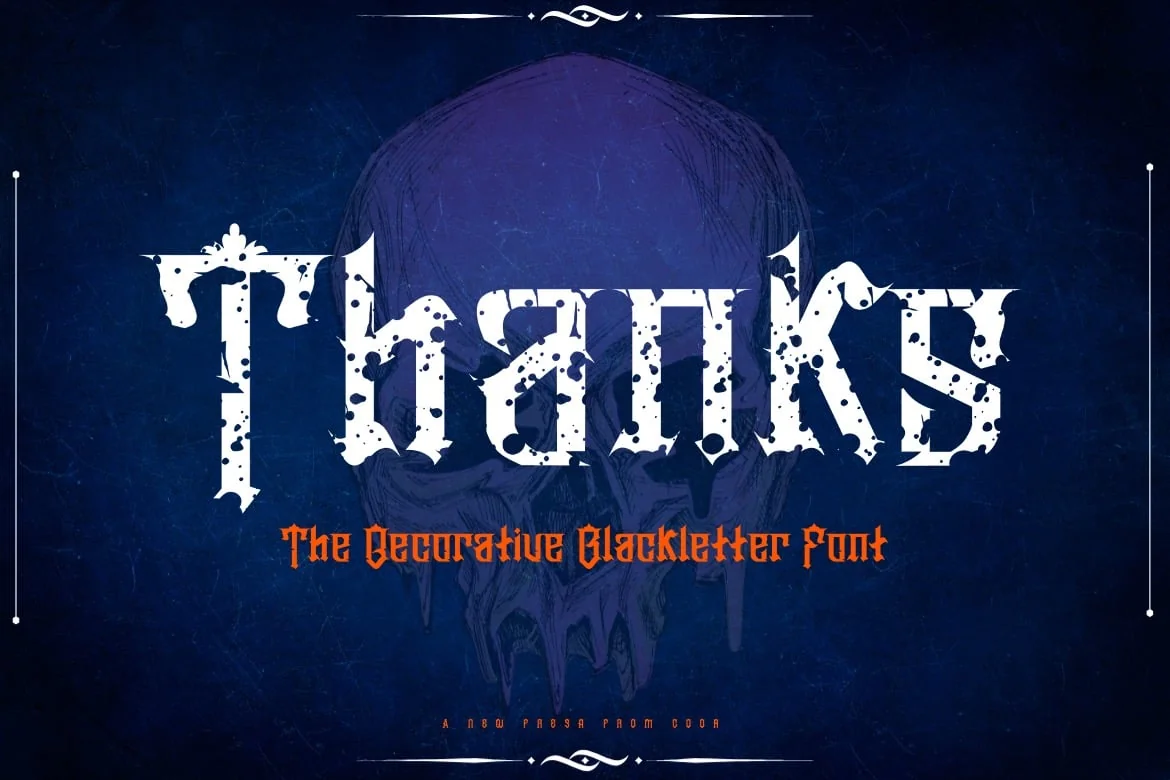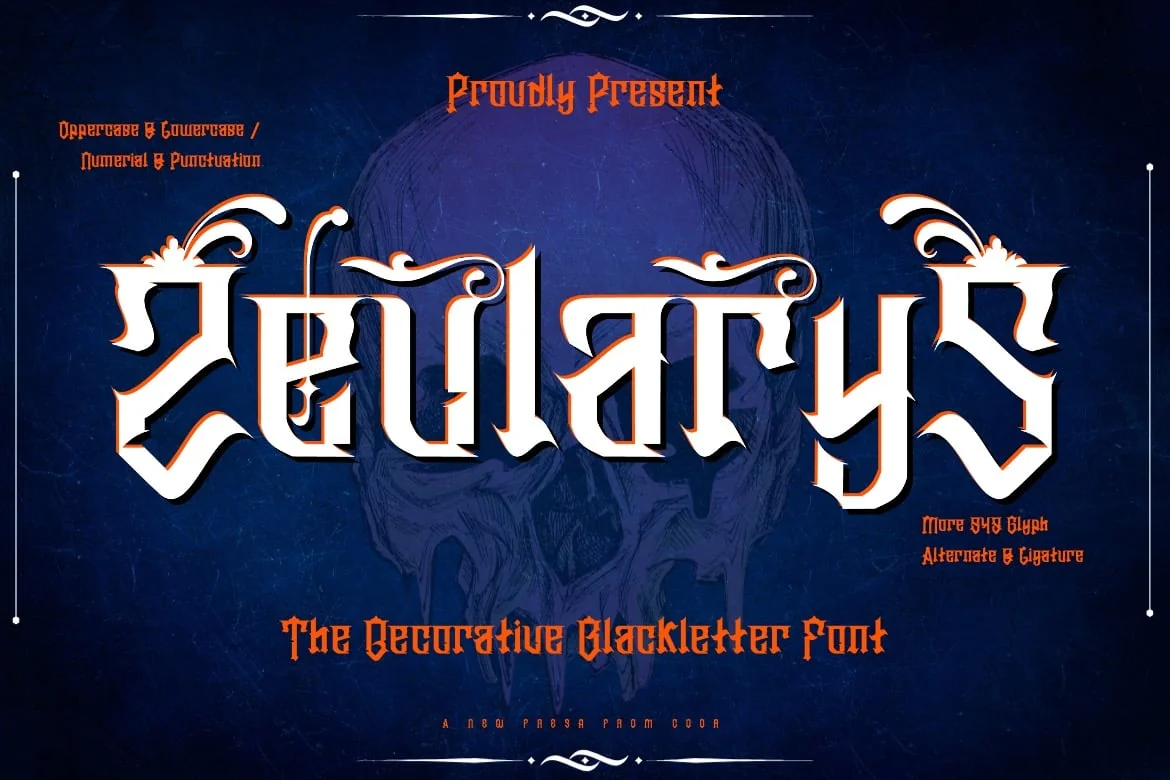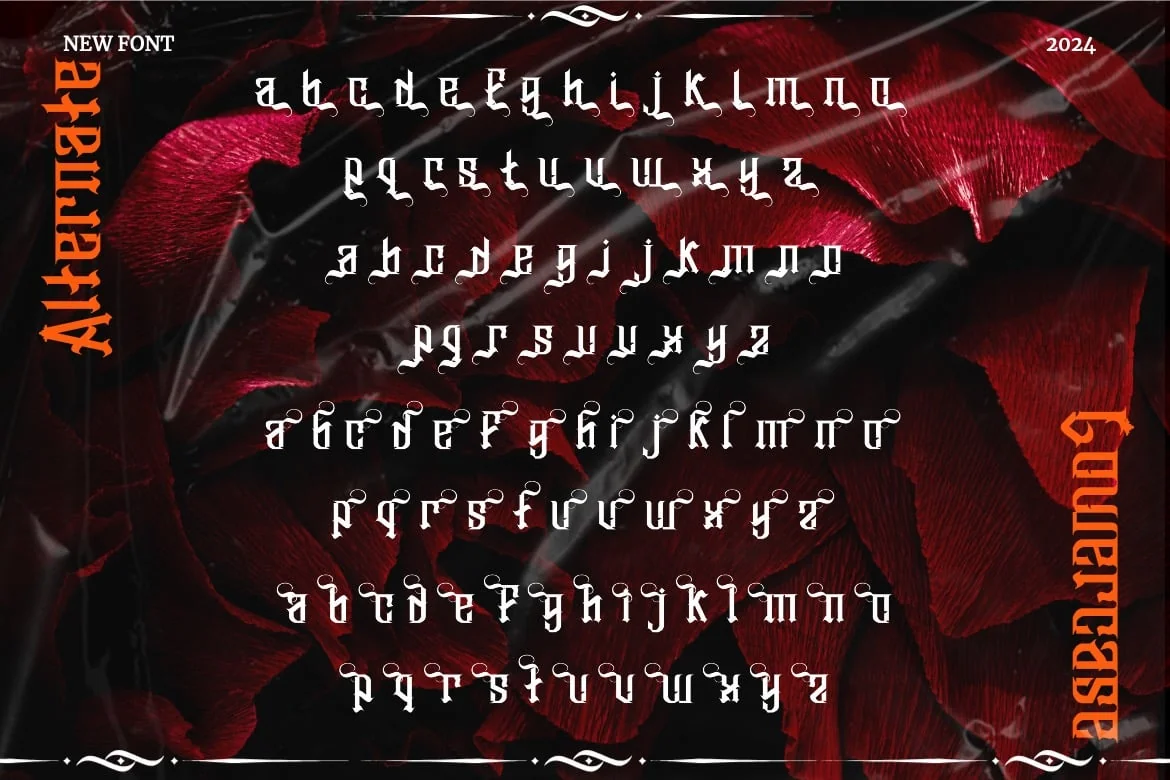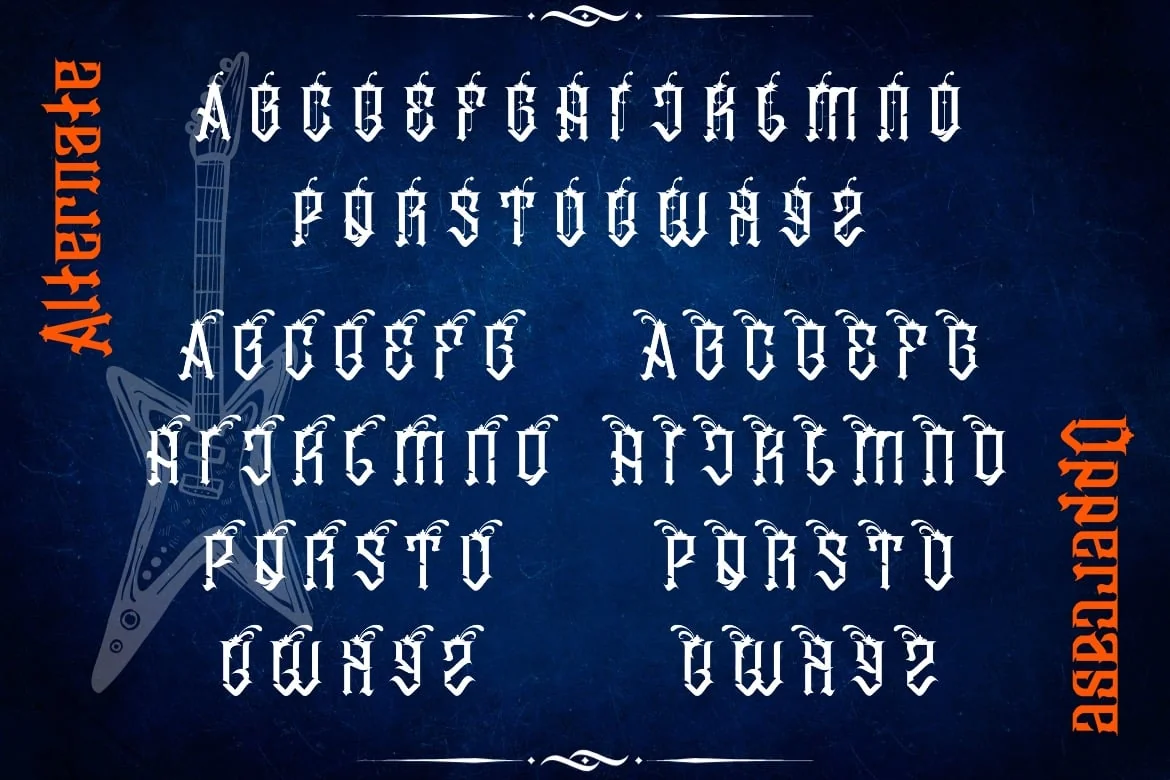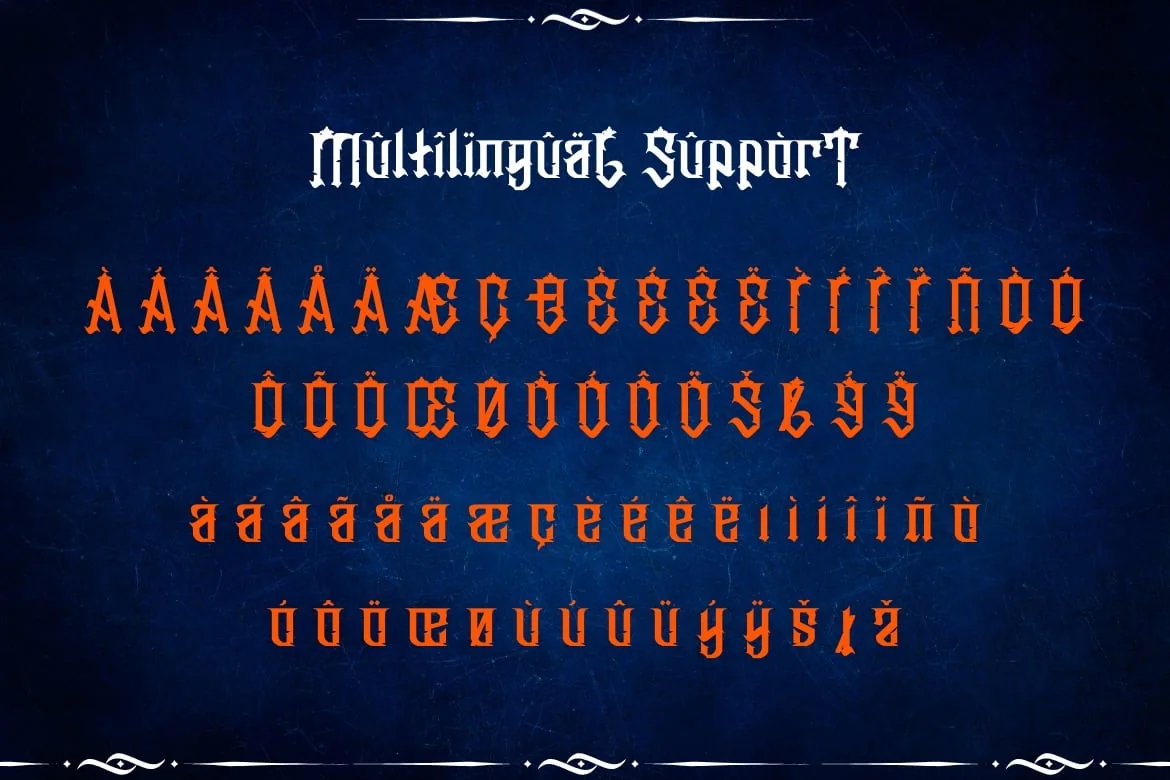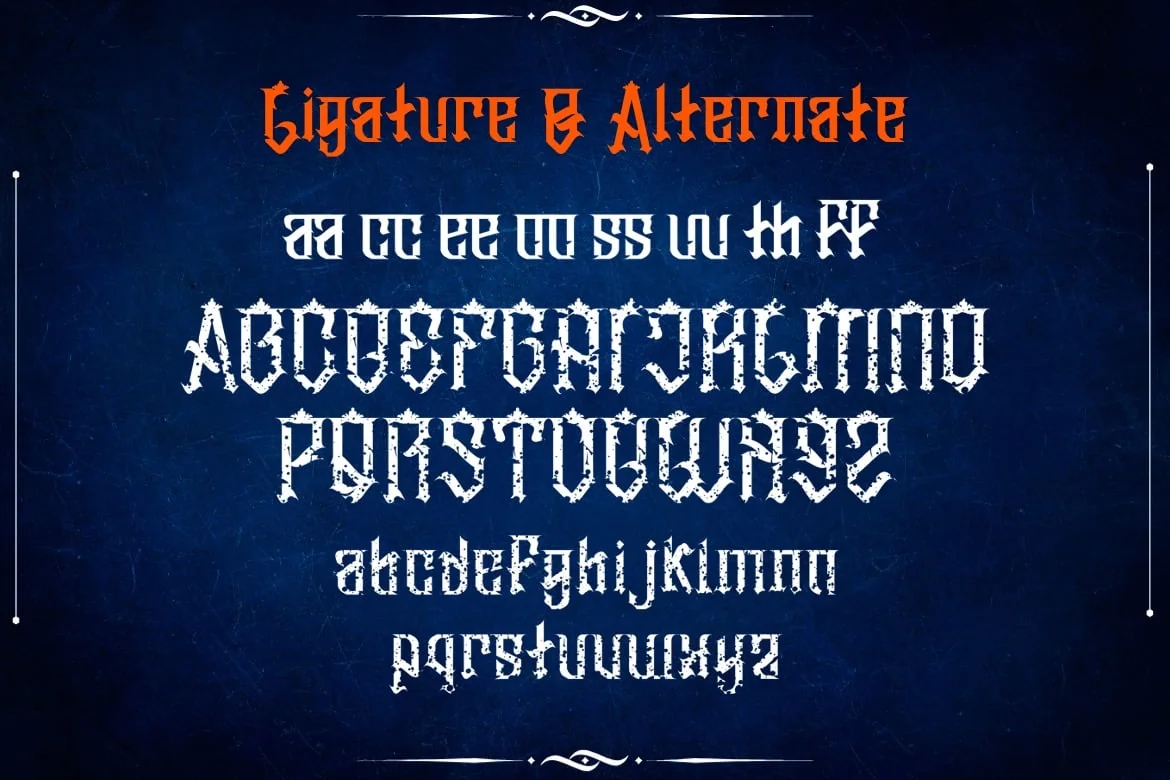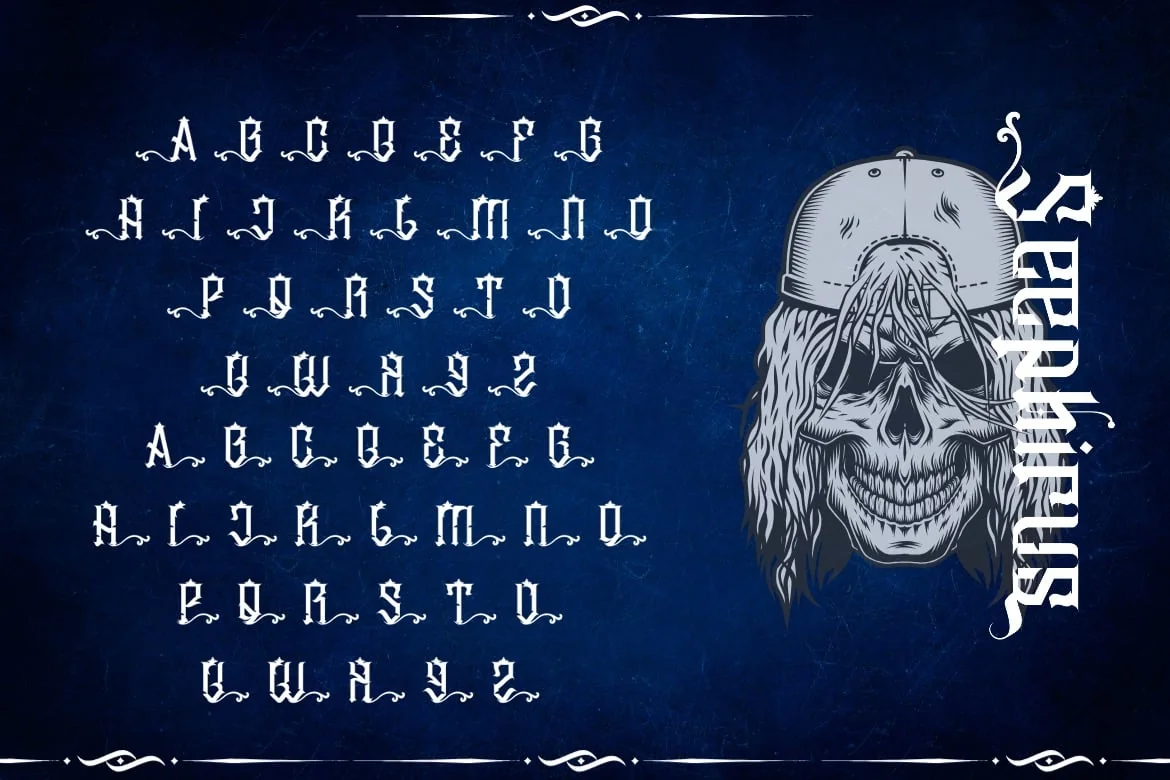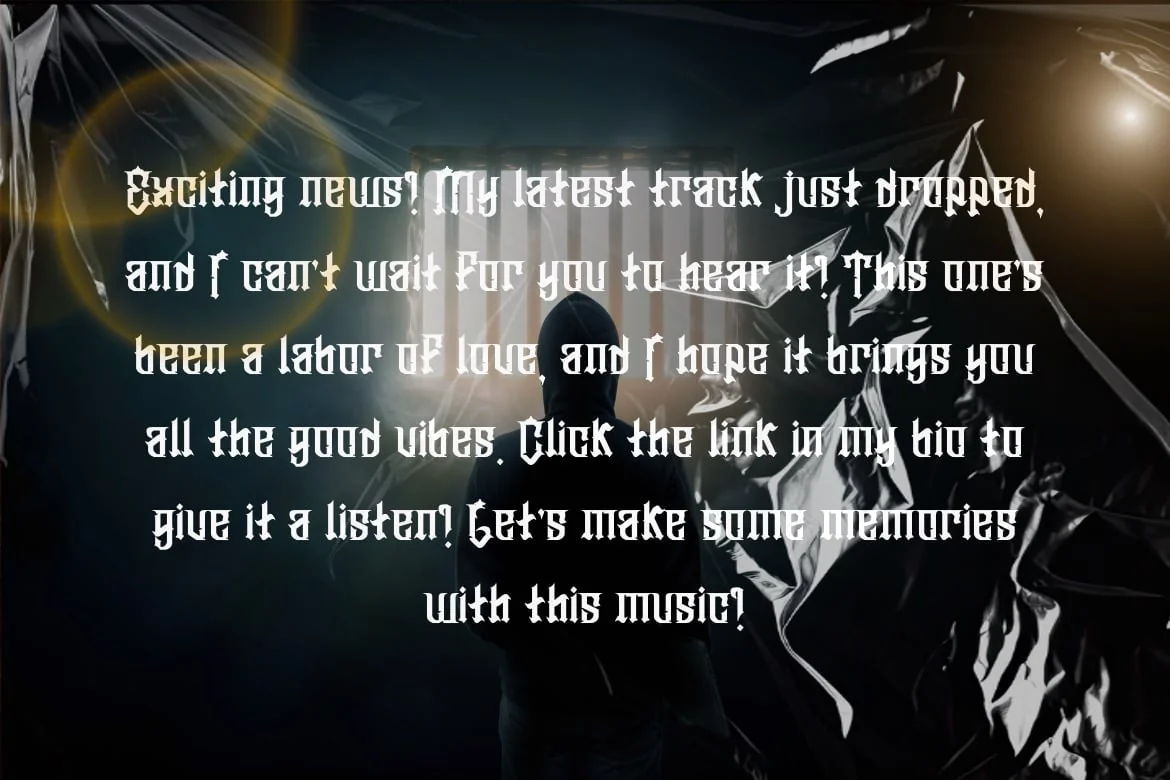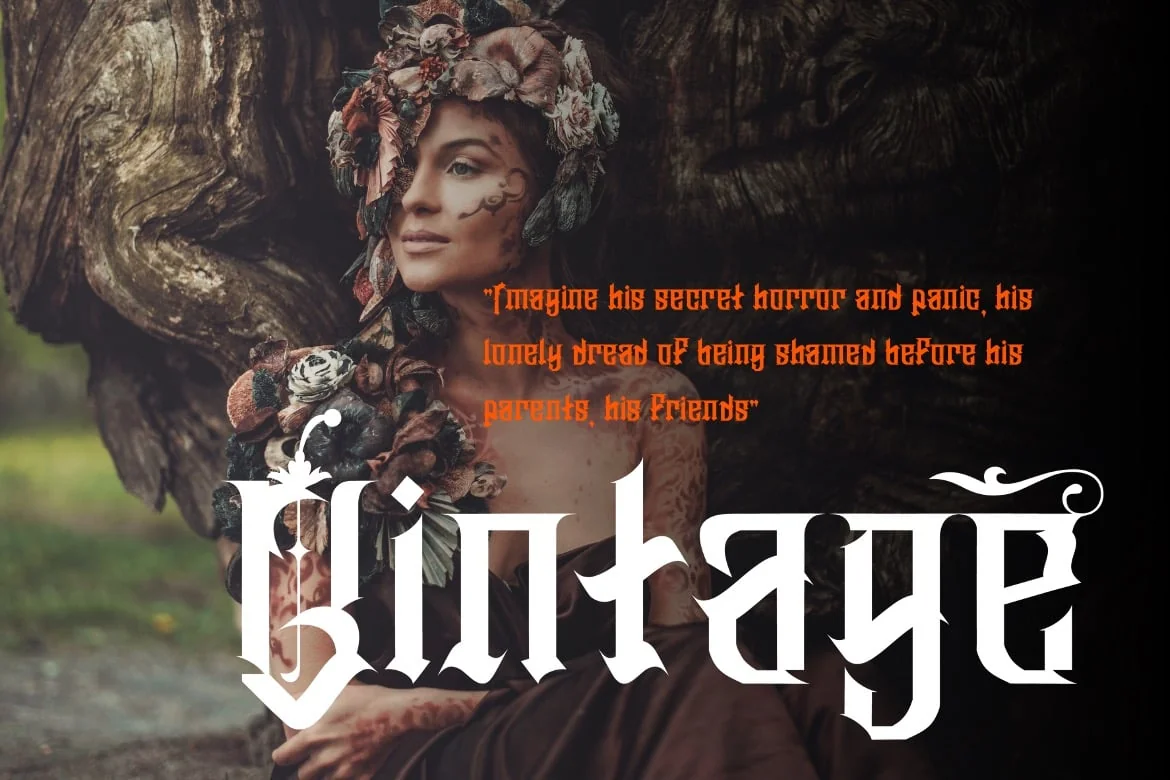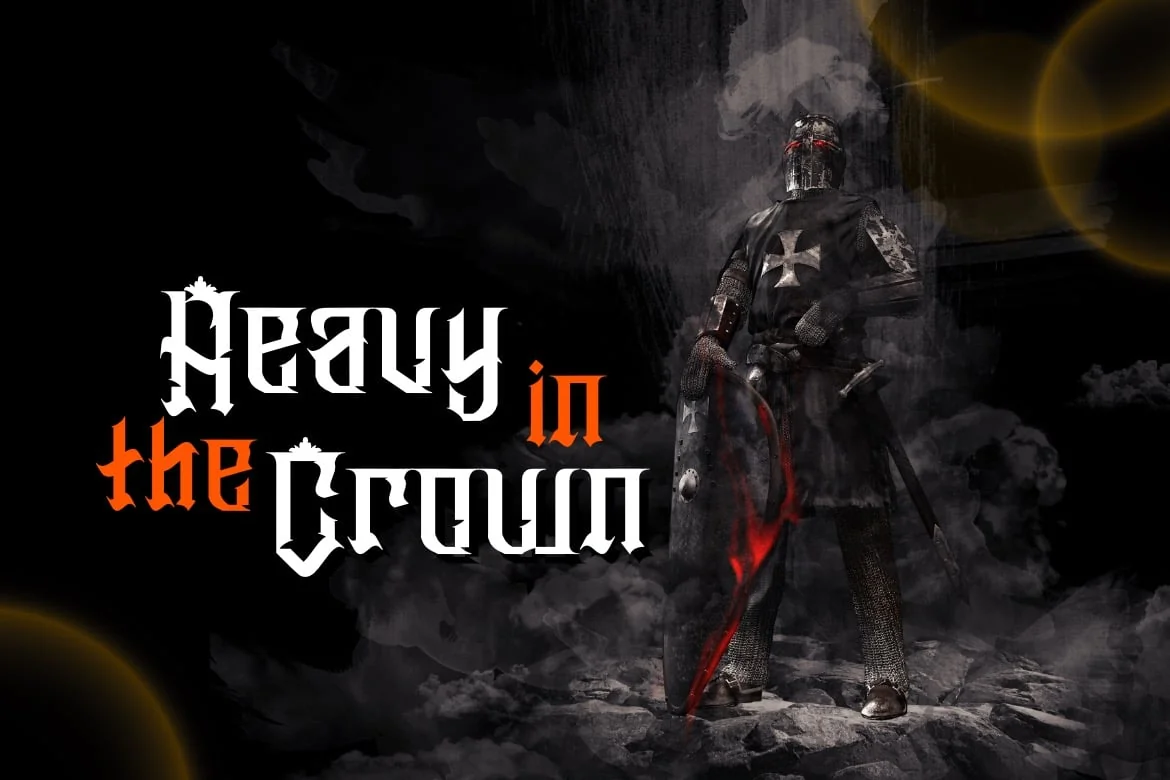
Zeularys – Font Decorative Blackletter
Introducing Zeularys – Font Decorative Blackletter
This Font is a delicate, elegant and flowing handwritten font. It has beautiful and well as a unique blend of ligatures a letter, so that the authors compose it with a and little swirly embedding, so that a modern font is formed and ready to make a statement by adding elegant and unique flair to your next design project. Add it to your most creative ideas and notice how it makes them come alive!
•   Uppercase & Lowercase
•   Alternate & Ligature
•   Numbering & Punctuation
•   Multilingual Supports